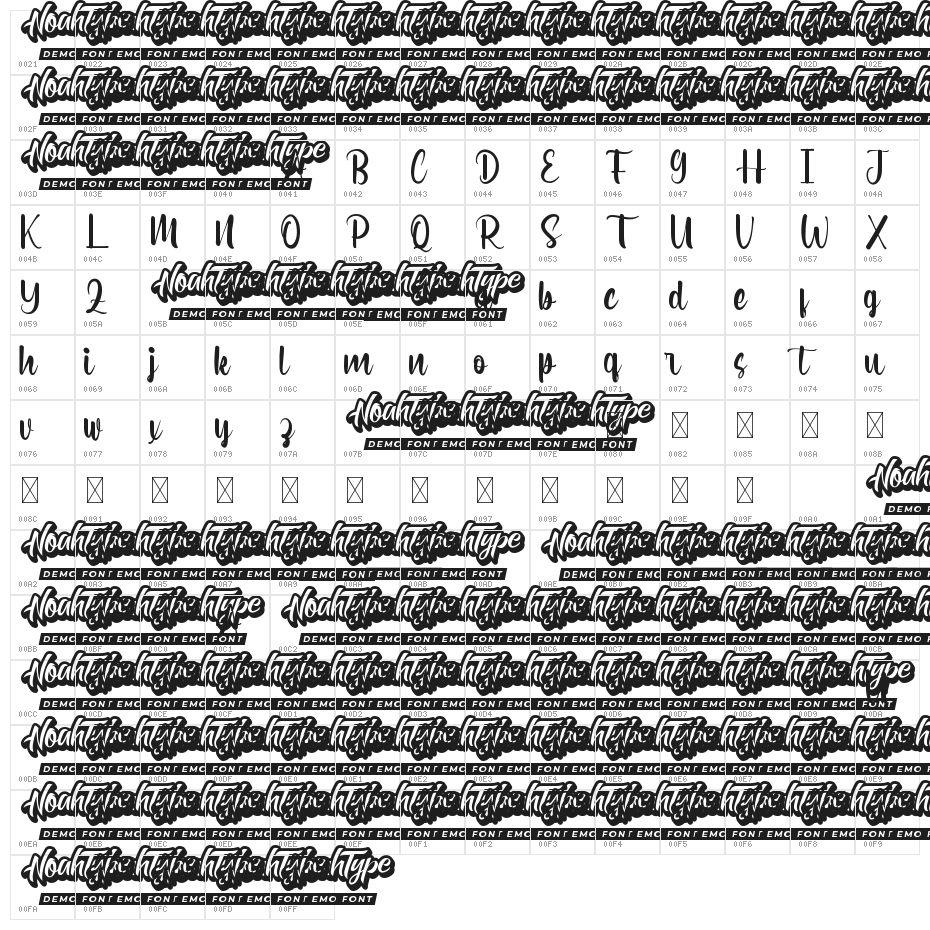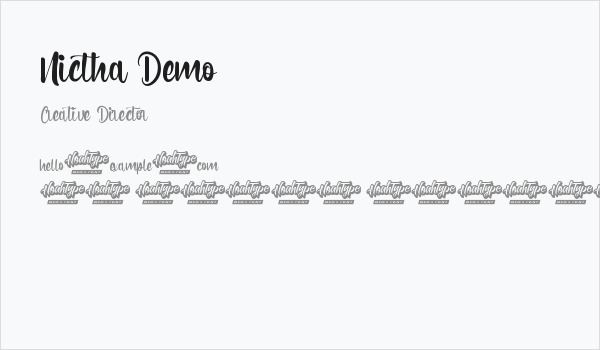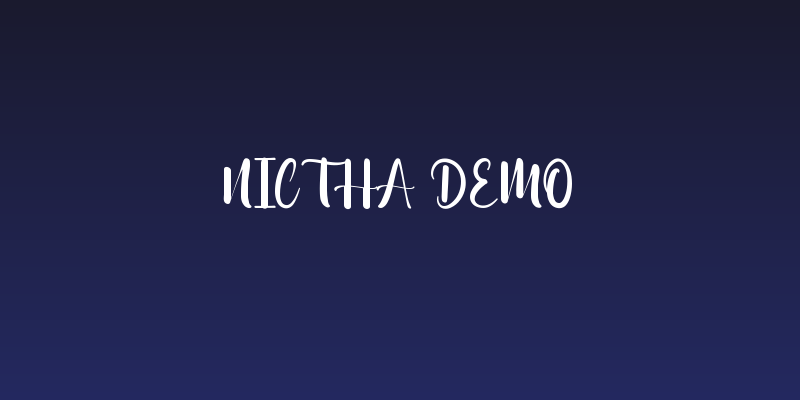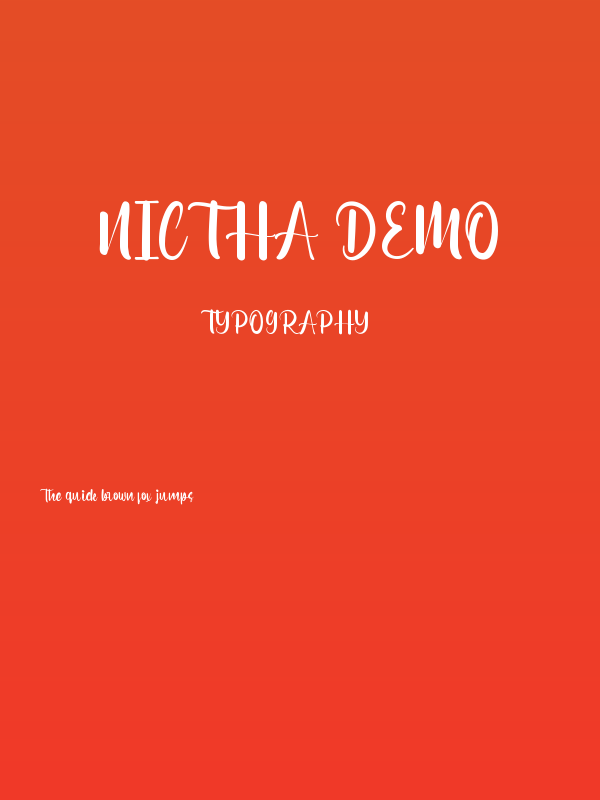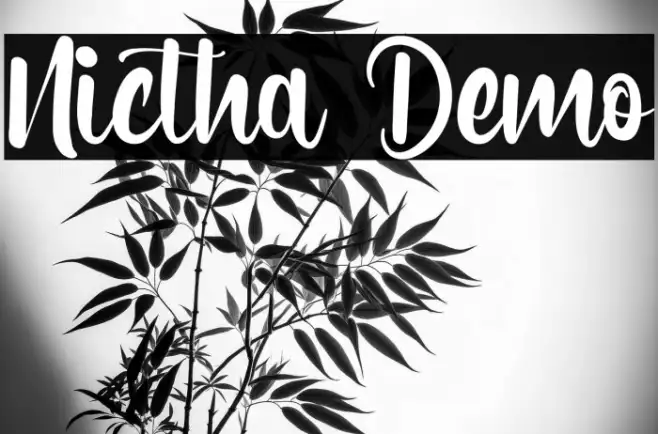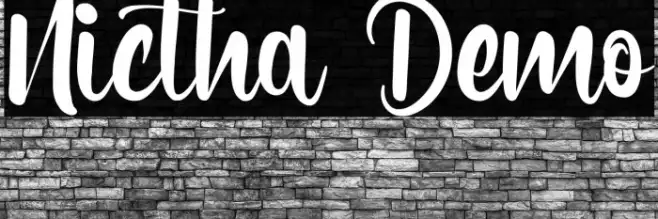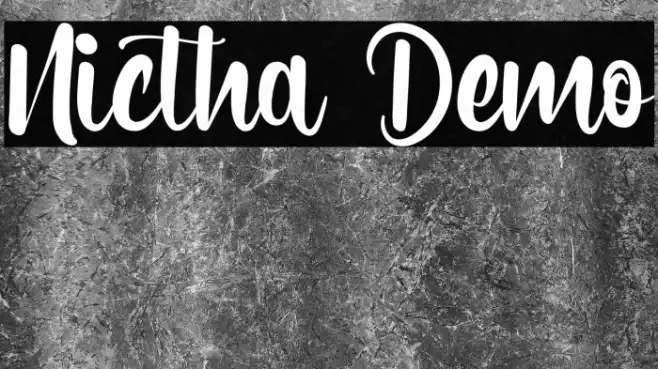
Nictha Demo Font
Nictha Demo Description
This font features a dynamic and expressive script style with a modern flair. The uppercase letters are characterized by their elegant, flowing lines and varying stroke widths, creating a sense of movement and energy. The lowercase letters maintain this fluidity, with some letters featuring distinctive loops and curls that add to the font's charm. The numerals and special characters are designed to complement the overall style, maintaining the same playful and artistic quality. This font is ideal for projects that require a touch of sophistication and creativity, such as branding, invitations, and decorative elements.